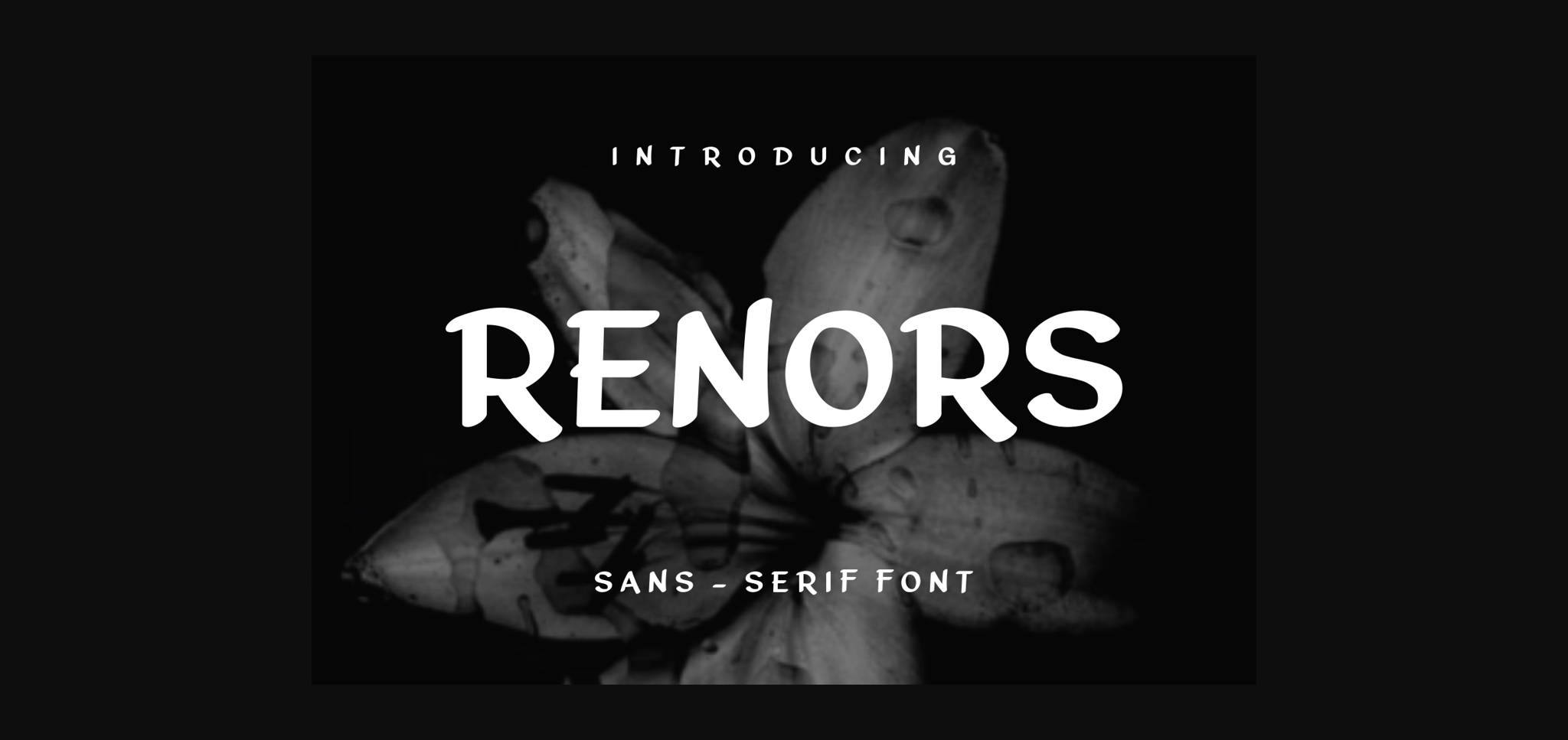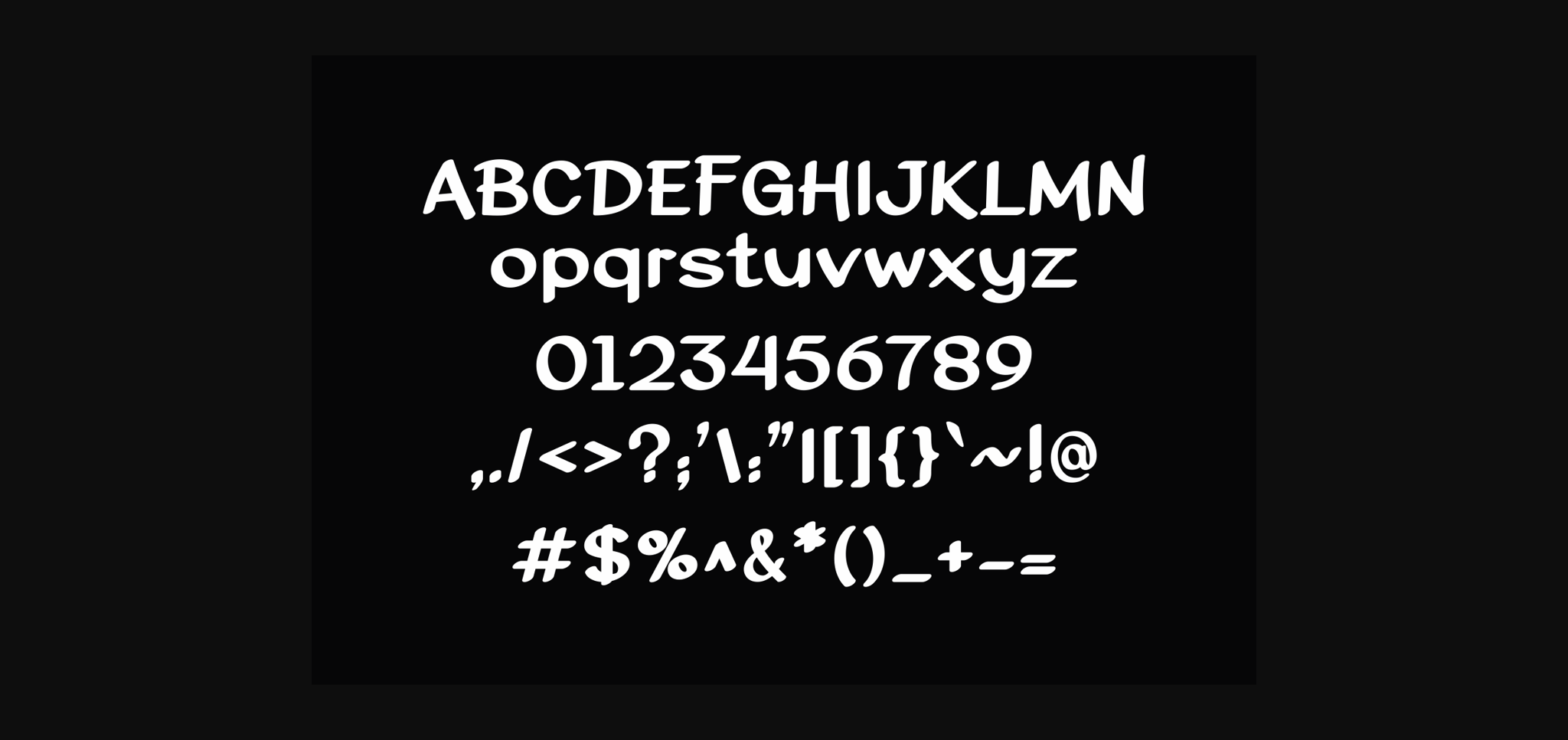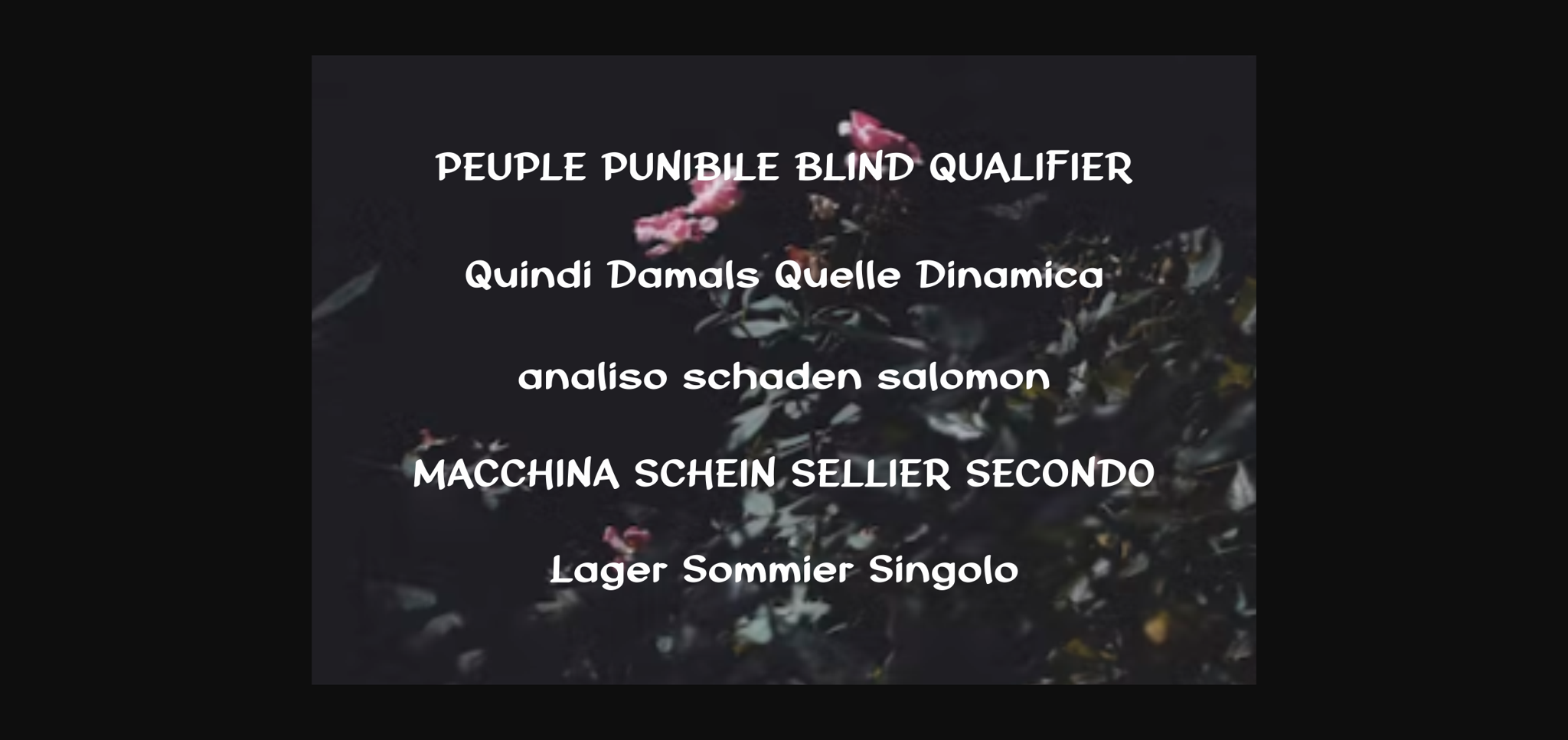
Renors Font
About Renors Font
Renors is a cool and unique sans serif font. No matter the topic, this font will be an incredible asset to your fonts’ library, as it has the potential to elevate any creation.